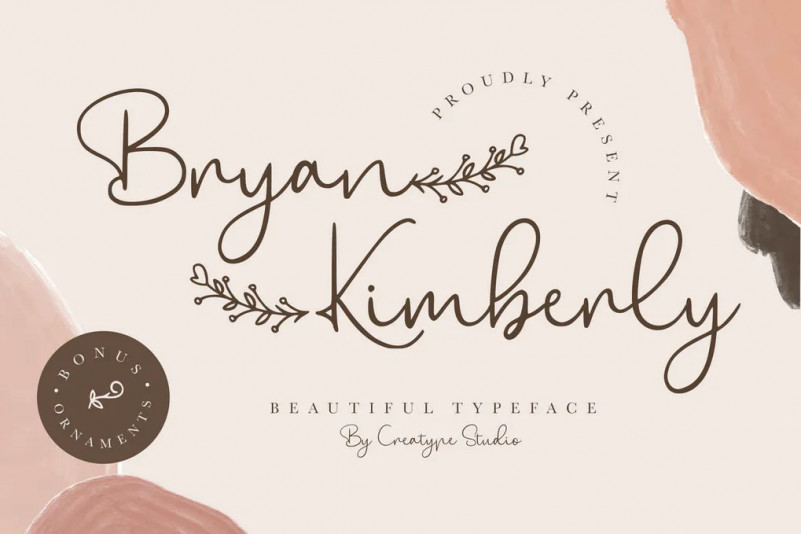
Bryan Kimberly Font
Bryan Kimberly is perfect for branding projects, logo, wedding designs, social media posts, advertisements, product packaging, product designs, label, photography, watermark, invitation, stationery and any projects that need handwriting taste.